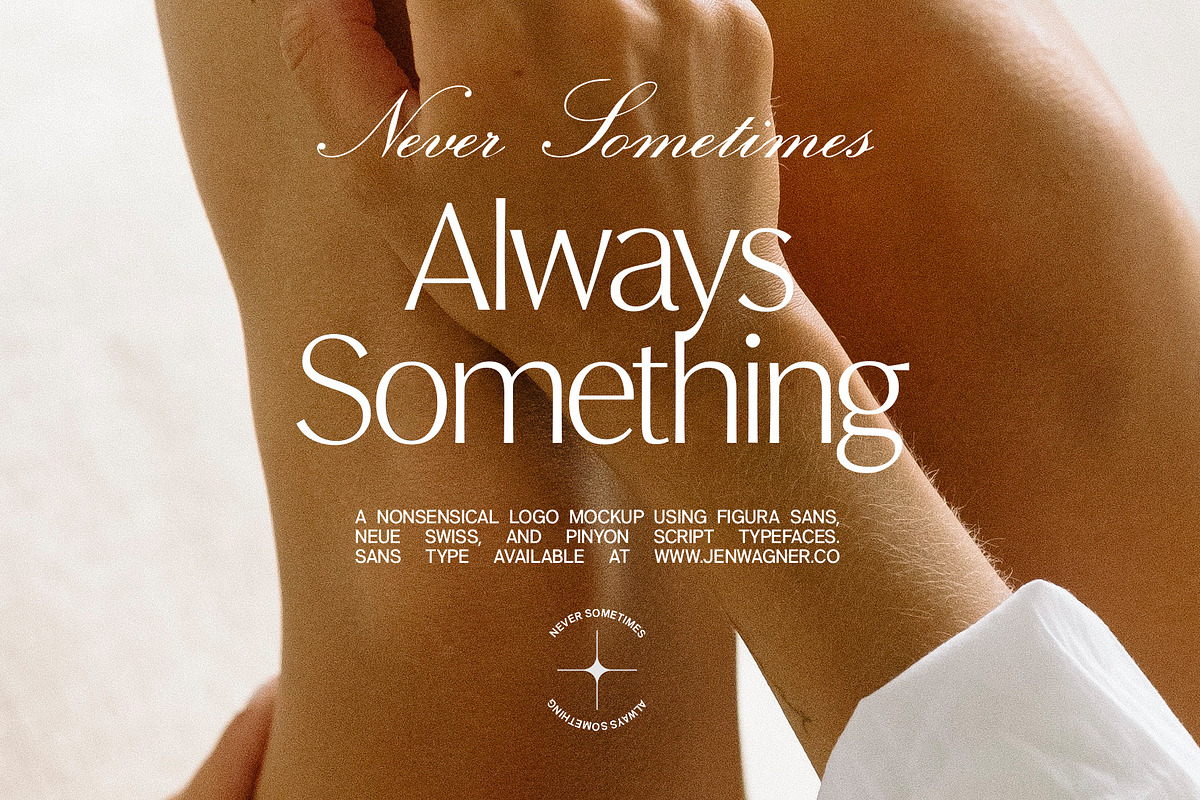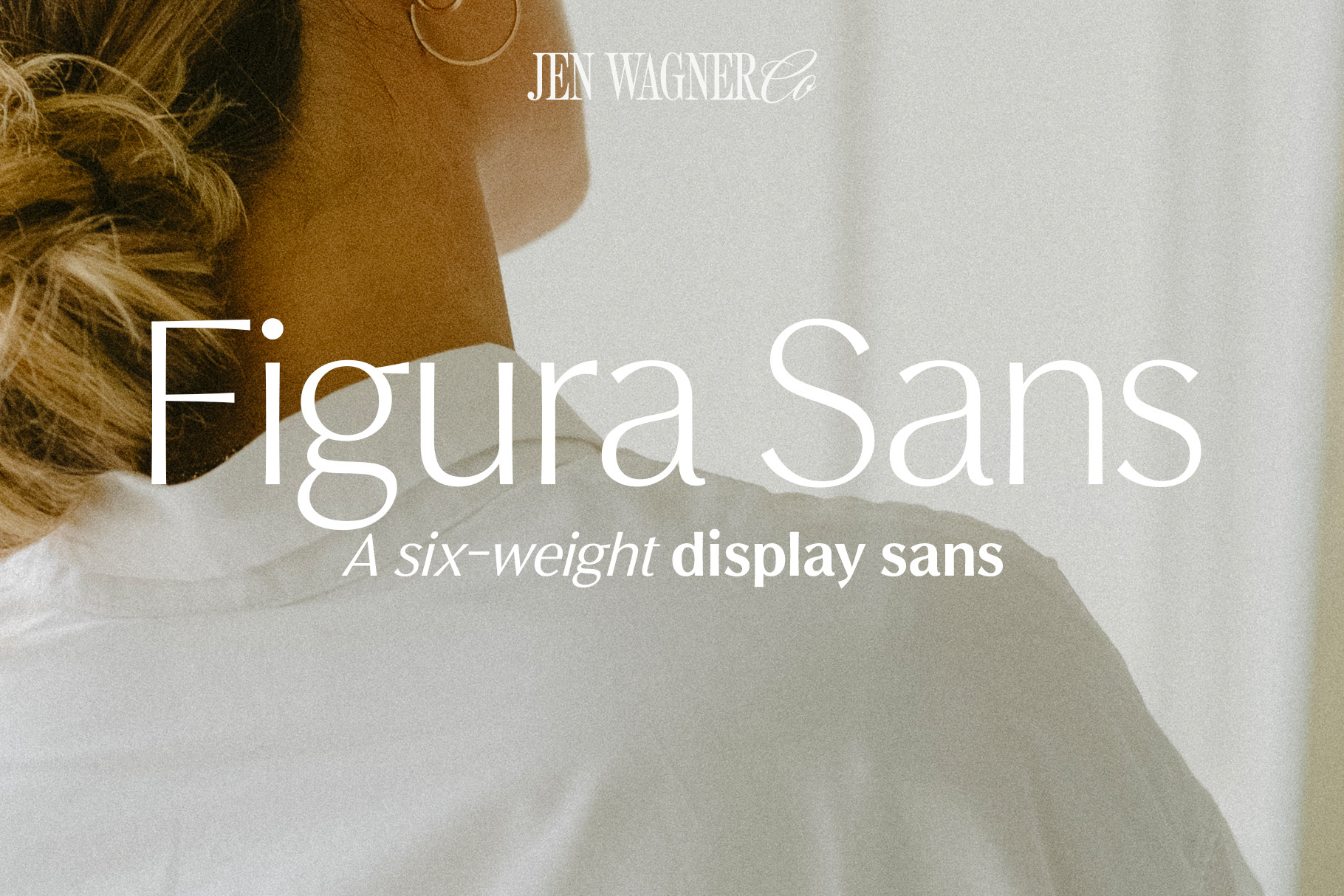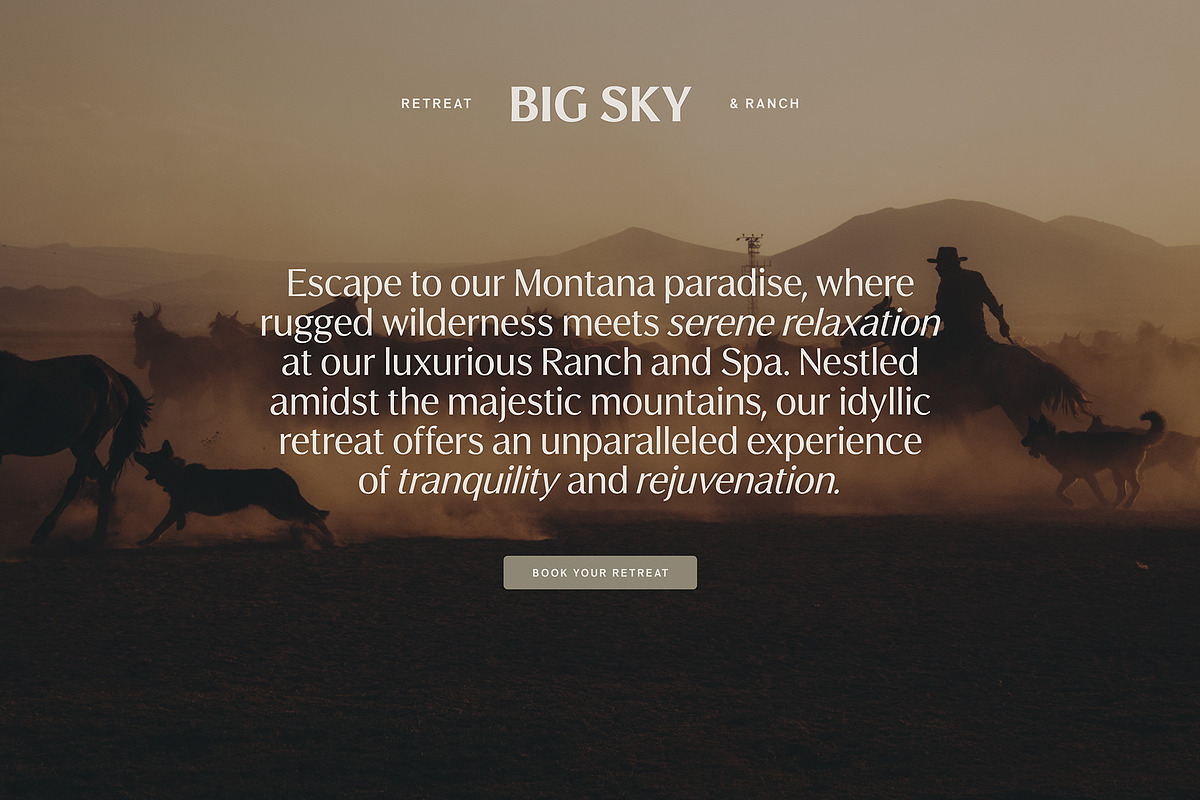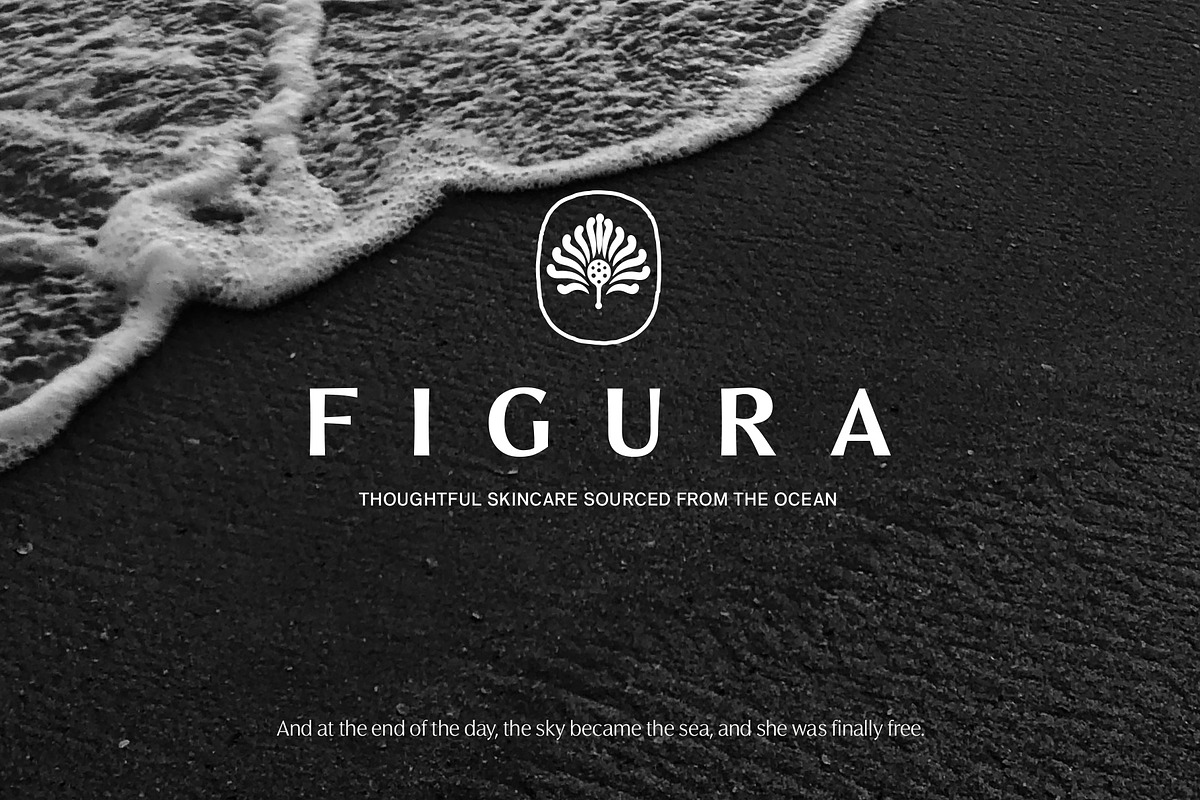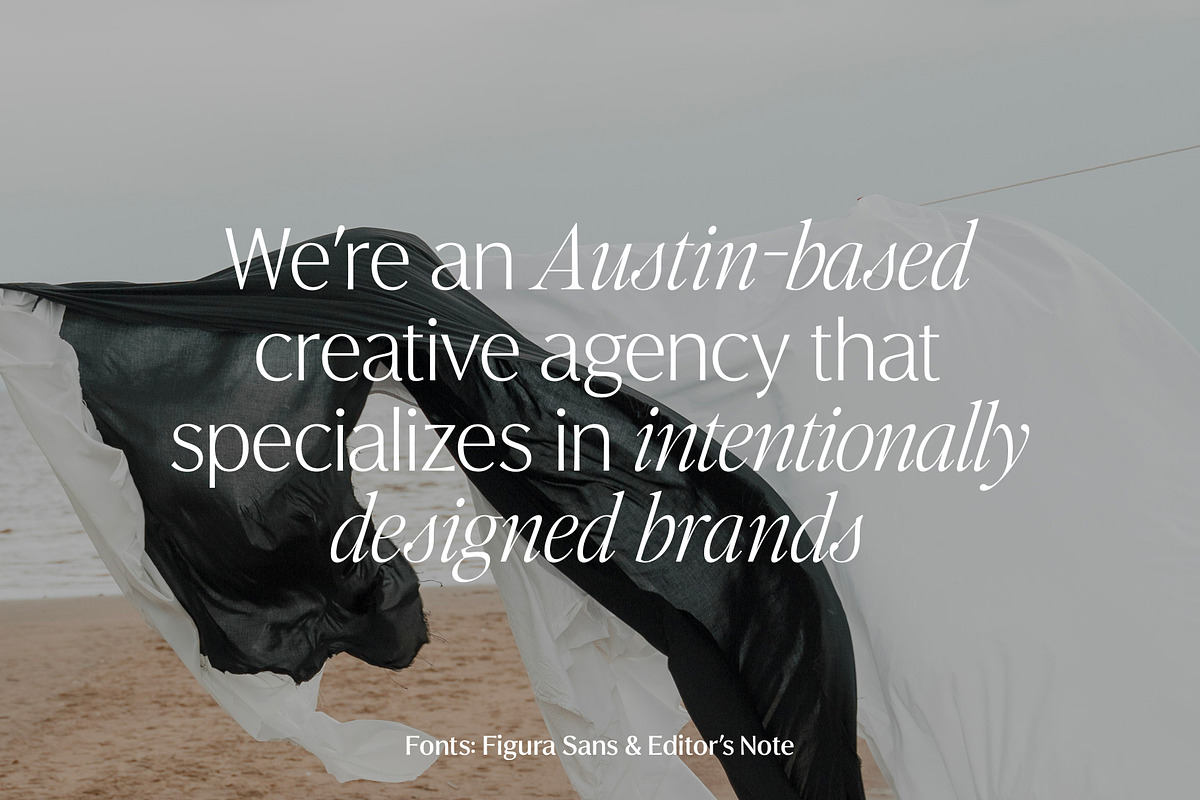
Figura Sans | A 12-Font Luxe Sans
Show off every gorgeous curve with Figura Sans. This classic, luxe sans looks incredible in both large and small settings as a display and body text.
- Figura Sans Light, Regular, Semibold, Medium, Bold, Extrabold, & their Italic counterparts (12 fonts total)